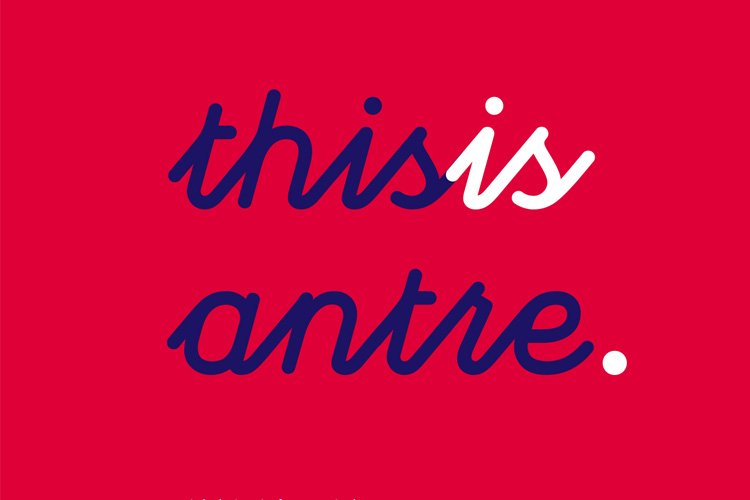
Antre Font
Antre Font designed and shared by tanerardali. Antre is an impressive handwriting, with smooth contours smooth, Antre include only lowercase letters, no capital letters. You can use it for many purposes of your design.